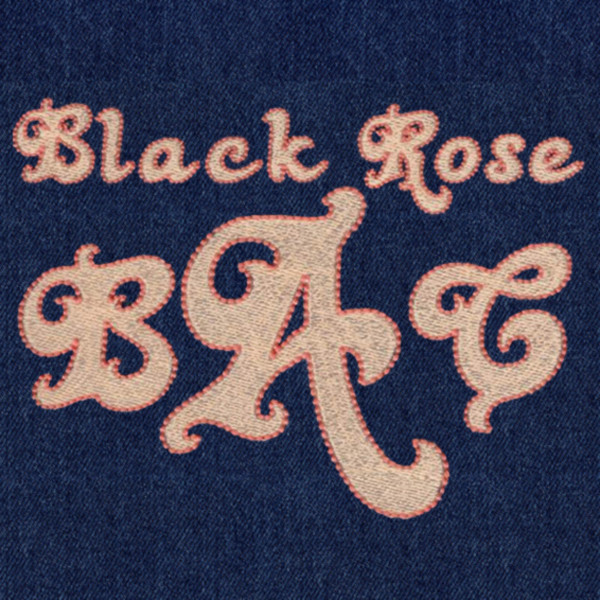
534 Black Rose Fill & Floss Font
Black Rose Fill & Floss Font comes in 1", 2", 3" and 4" heights based on the capital "B"; most other capital letters have ascenders, descenders or flourishes that extend below the base line and/or above the top line making the actual measured height for some capital letters like the letter "A" about 30% taller than the "B"...see the character chart above for reference. All sizes are included in the purchase price and include uppercase letters, lowercase letters, numbers and four punctuation marks. All characters are finished in Fill Stitch with Floss Stitch outlines in two-color set up. Floss Stitch stitches out on all embroidery machines using standard embroidery thread.